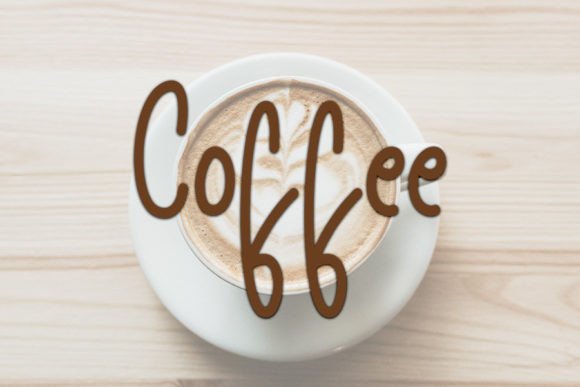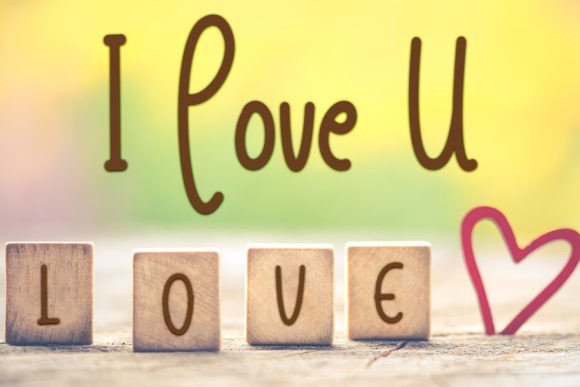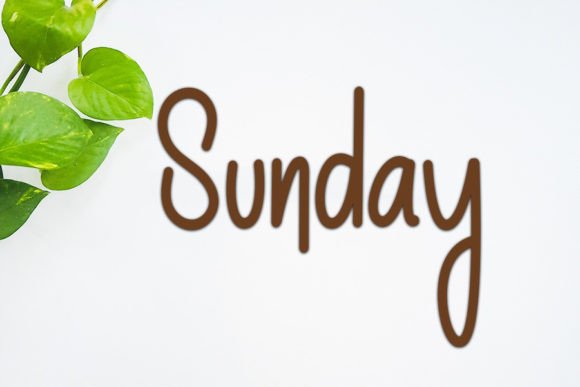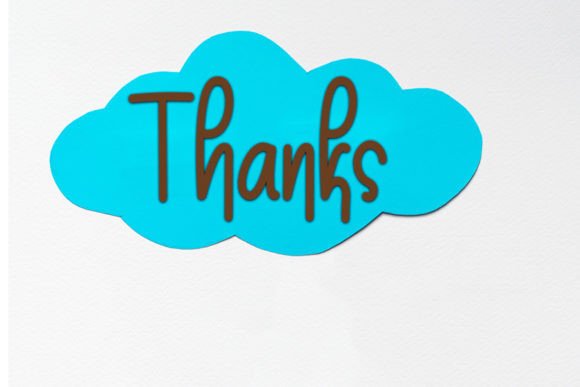
The Joy of Design: Introducing Happy Font
You know that moment when you’re working on a project and everything just comes together? The colors, the layout, the text – it’s like magic. And then, you see it – a font that makes your design pop. For designers, finding the perfect font can be a game-changer. That’s why we’re excited to introduce you to the Happy Font, a beautiful handwritten font that adds an elegant touch to any project.
With its distinct and timeless style, Happy Font is perfect for creating spectacular designs that leave a lasting impression. Whether you’re working on a wedding invitation, a blog post, or a social media campaign, this font is sure to bring a smile to your face and your audience’s. Its versatility and charm make it a valuable addition to any designer’s toolkit.
Happy Font Key Features
- Unique Characteristics: Custom-designed for a playful, friendly feel with rounded edges and open curves
- Language Support: Supports over 200 languages, including Latin, Cyrillic, and Greek scripts
- Kerning and Ligatures: Includes advanced kerning and ligature support for improved readability
Happy Font Review
I recently had the chance to work with the “Happy Font” and I must say it’s an interesting addition to the font library. Here are my honest thoughts:
- The font’s playful and energetic vibe is perfect for creating a cheerful atmosphere in designs. It’s great for adding a pop of color and personality to your projects.
- The font’s versatility allows it to be used in a variety of contexts, from logos to social media graphics to print materials.
- The font’s high legibility makes it easy to read, even at smaller sizes.
- The font’s boldness can sometimes make it difficult to use in more serious or professional contexts.
- The font’s cursive nature can make it challenging to use for headings or titles, as it can be hard to read at larger sizes.
- The font’s lack of a condensed version can make it less suitable for use in tight spaces, such as mobile apps or websites.
Overall, I think the “Happy Font” is a fun and creative addition to any designer’s toolkit. While it may have some limitations, its versatility and high legibility make it a great choice for a wide range of projects. I would definitely consider using it again in the future.
Getting the Most Out of Happy Font
For the best results, use Happy Font in conjunction with other design elements, such as bright colors and playful graphics.
Experiment with different font sizes and styles to create visual interest and emphasis.
Happy Font is perfect for:
- Children’s books and educational materials.
- Marketing materials, such as brochures and flyers.
- Personalized gifts and invitations.